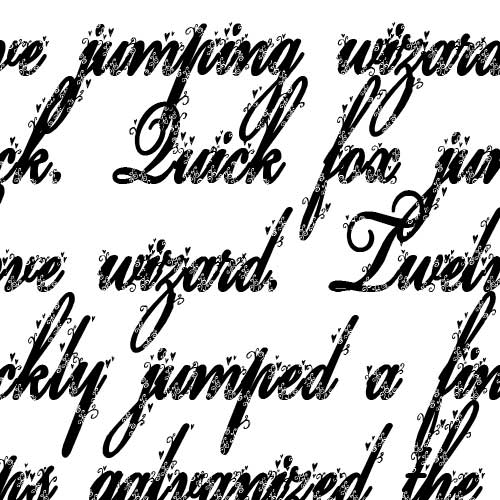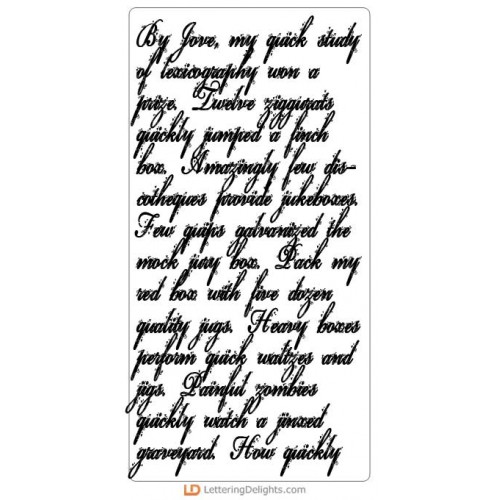
LD Love Me - Font
Hearts and curls abound on this romantic style font. It makes you want to sing out "love me tender, love me sweet!" Being a script style adds to it's appeal and would be fabulous on scrapbook layouts and notes.